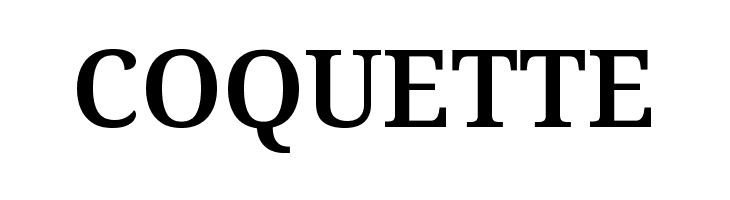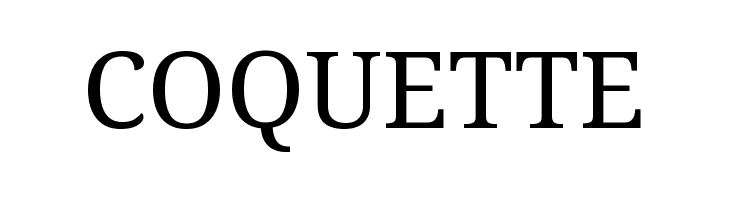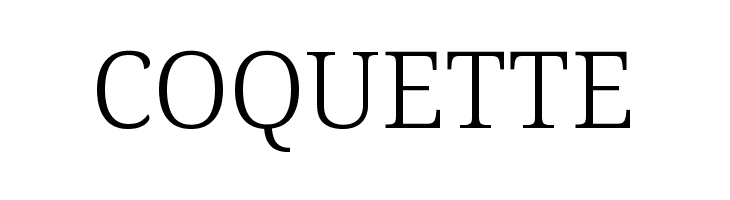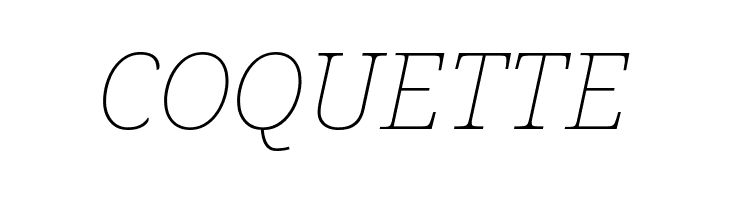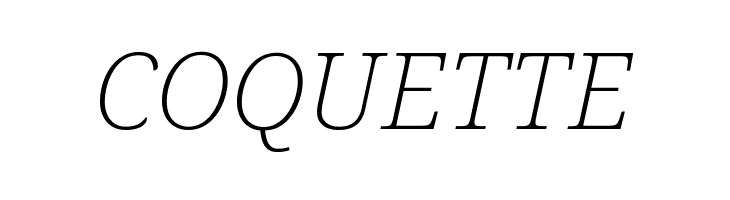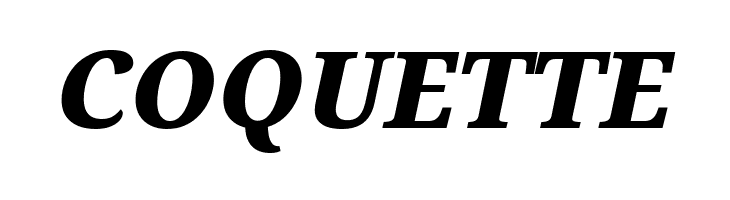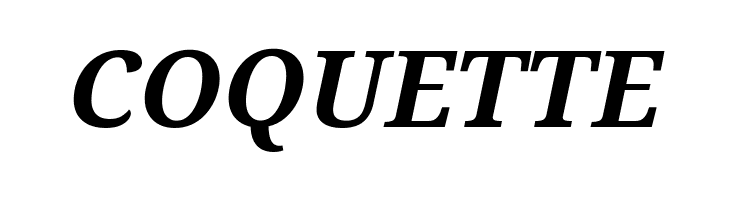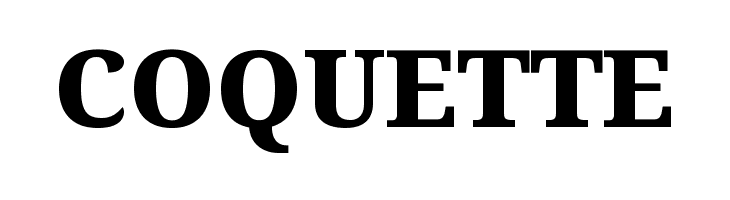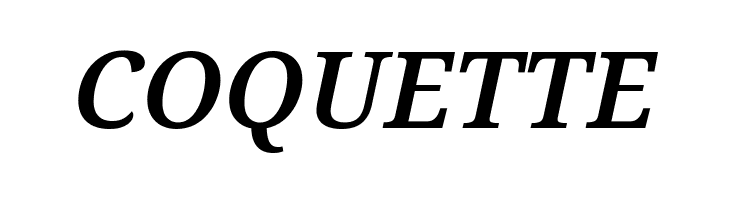
• Avrile Serif Black
A bold, high-contrast serif font with a strong, authoritative presence.
• Avrile Serif Black Italic
A bold, italic serif font with a classic and authoritative style.
• Avrile Serif Bold
A bold serif font with classic elegance and strong readability.
• Avrile Serif Bold Italic
A bold, italic serif font with a classic and elegant style.
• Avrile Serif ExtraBold
A bold, classic serif font with strong vertical lines and pronounced serifs.
• Avrile Serif ExtraLight
A refined serif font with thin, elegant strokes and subtle serifs.
• Avrile Serif ExtraLight Italic
An elegant, extra light serif font with an italic style.
• Avrile Serif Italic
An elegant serif font with a classic italic style, perfect for sophisticated designs.
• Avrile Serif Light
A classic serif font with elegant, light strokes and refined serifs.
• Avrile Serif Light Italic
A light, italic serif font with elegant curves and refined serifs.
• Avrile Serif Medium
A classic serif font with medium weight and balanced readability.
• Avrile Serif Medium Italic
Elegant serif font with medium weight and italic style.
• Avrile Serif SemiBold
A classic serif typeface with semi-bold weight and elegant serifs, perfect for refined readability.
• Avrile Serif SemiBold Italic
A classic serif font with semi-bold weight and italic style, offering elegance and readability.
• Avrile Serif Thin
A thin, elegant serif font with refined strokes and a modern aesthetic.
• Avrile Serif Thin Italic
A refined, thin serif font with an elegant italic style.
• AvrileSerif Regular
A classic serif font with modern elegance and medium contrast.